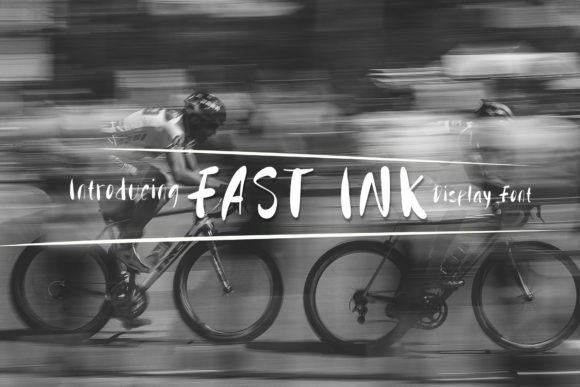
Fast Ink Font: Where Speed Meets Strength in Letter Design
Embark on a visual journey as you discover Fast Ink, a display font crafted with the passion and purpose of capturing dynamics and power in letter design. Inspired by the allure of ink's expressive movements and the energy of swift, confident strokes, Fast Ink exudes a sense of vibrancy and life in each character.
Witness the captivating fusion of precision and boldness as every deliberate stroke in Fast Ink unites to form characters that demand attention. These lively creations beckon the eye to follow their flowing lines, inviting you to immerse yourself in their captivating rhythm.
Unleash your creativity with Fast Ink, the perfect companion for projects that yearn for a dynamic flair. Whether you're designing eye-catching posters, creating striking logos, or seeking to infuse energy into your design endeavors, Fast Ink will ignite your imagination and propel you to explore boundless possibilities.
This extraordinary font is more than just a collection of letters; it's an artistic expression that embodies the essence of speed and strength in letter design. Feel the rush of inspiration as Fast Ink propels your ideas forward, leaving a trail of visual brilliance in its wake.